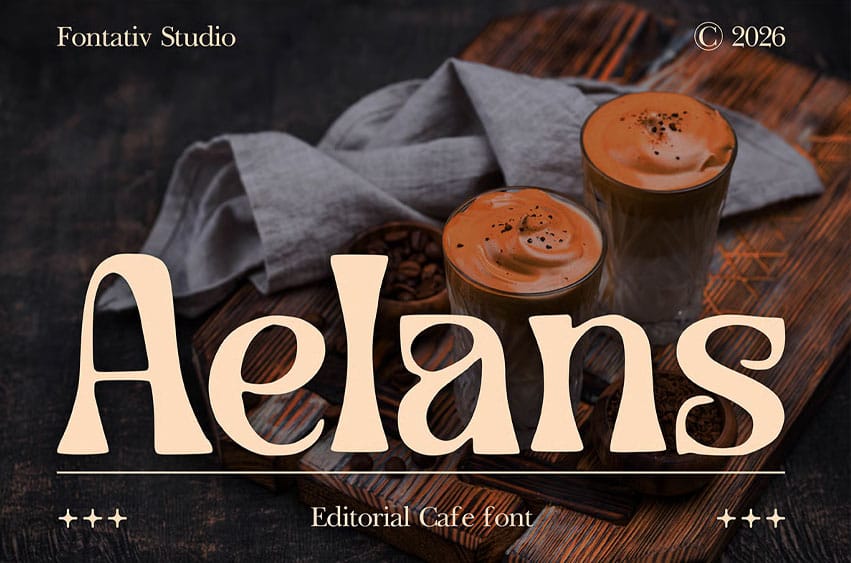
Aelans Font is an editorial cafe font crafted with a warm vintage charm and refined display character. Its elegant serif forms, decorative details, and inviting personality make it perfect for café branding, coffee shop identities, bakery packaging, restaurant menus, product labels, signage, posters, and food-related promotions. The font captures a cozy and handcrafted atmosphere while maintaining a polished editorial appearance.
Designed for creative branding and standout typography, Aelans works beautifully for logos, headlines, packaging, social media content, and printed materials. Its distinctive style brings a sense of authenticity, sophistication, and warmth, making it an excellent choice for coffee brands, artisan businesses, hospitality projects, and lifestyle designs that seek a memorable visual identity.